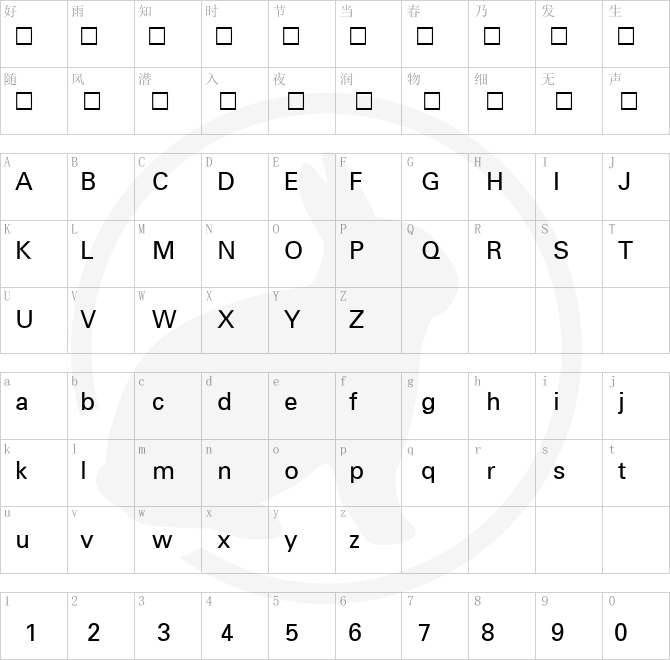
P5-CordiaUPC-Bold.ttf is a very beautiful artistic font, P5-CordiaUPC-Bold.ttf is widely used in the design and printing of various books and pictures,P5-CordiaUPC-Bold.ttf has a strong visual impact,P5-CordiaUPC-Bold.ttf is a commonly used font in newspapers, magazines and books, and is used in posters, e-commerce Poster design, store design, logo design, font design and other fields.P5-CordiaUPC-Bold.